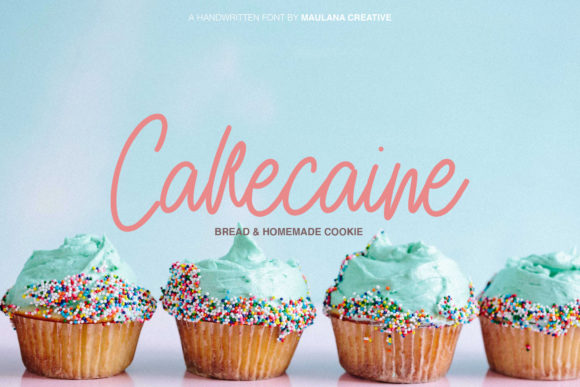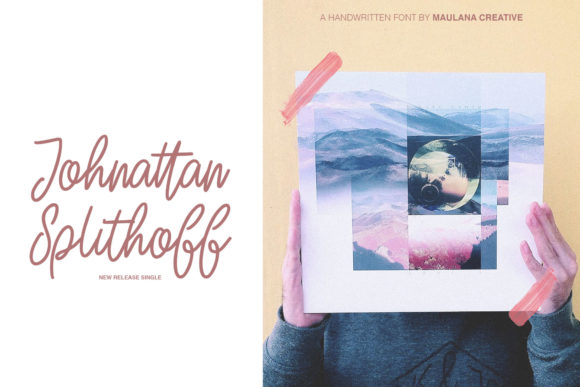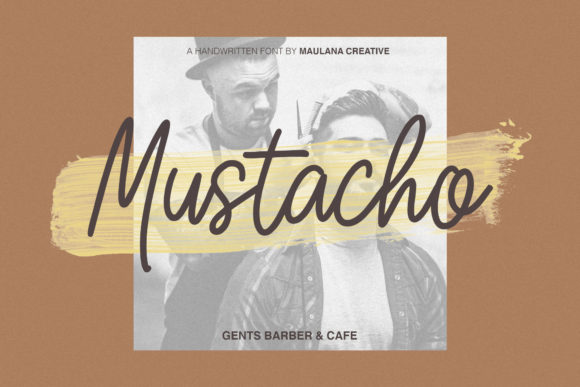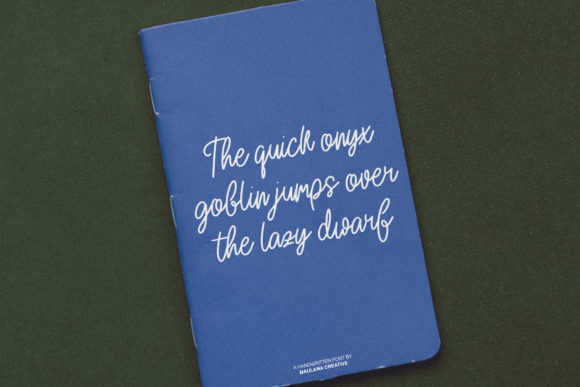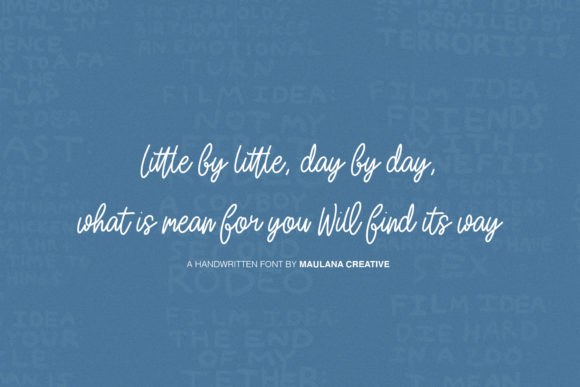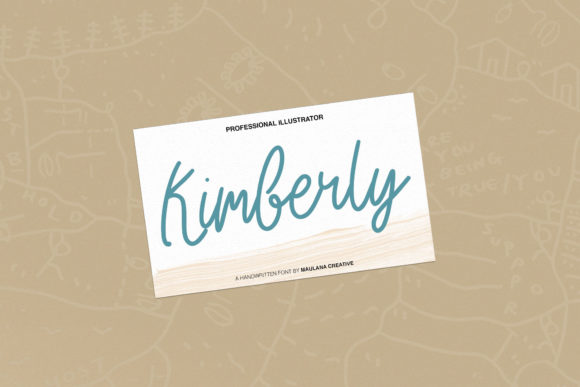
Introduction to Howells Font
Howells is a charming script font that will turn any design idea into a true standout.
Get inspired by its authentic charm .
Howells Font offers exceptional quality and versatility, making it a valuable addition to your design toolkit. Whether you’re creating for personal projects or commercial use, Howells Font delivers professional results.